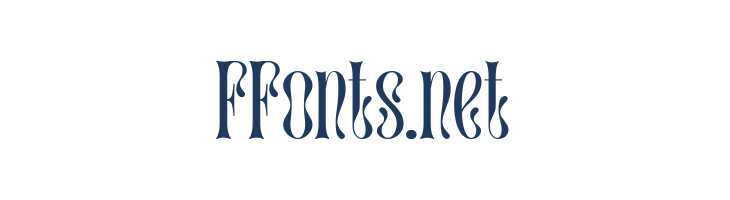
the Upstairs Demo Font
the Upstairs Demo Description
A decorative, vintage-inspired serif font with elaborate, ornate letterforms and high contrast details.
| Overall Style | Vintage, Ornate, Decorative |
| Use Case | Headlines, Logos, Posters, Branding |